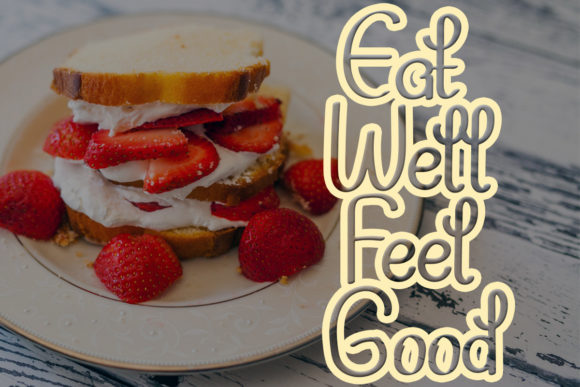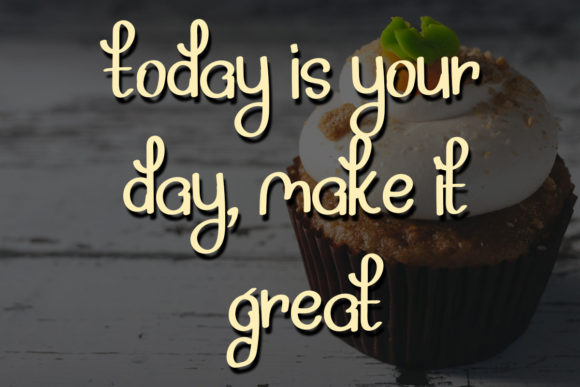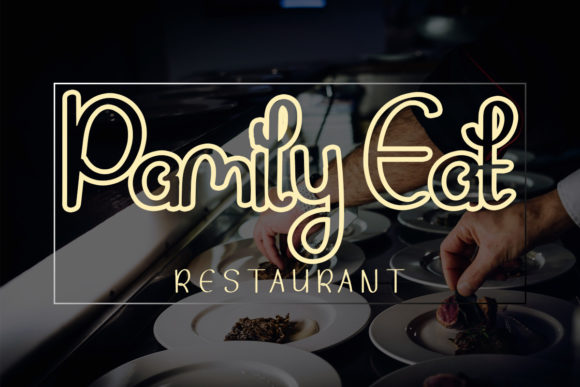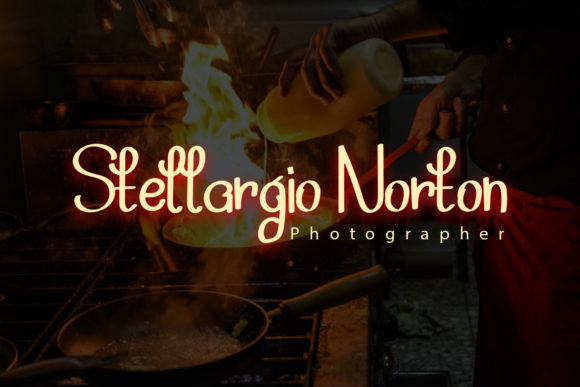
About Mycaco Font
Mycaco is a simple and adaptable handwritten font. This font will be an incredible asset to your fonts’ library, as it has the potential to elevate any creation.